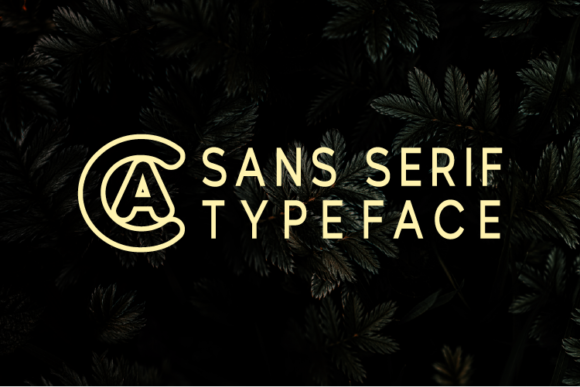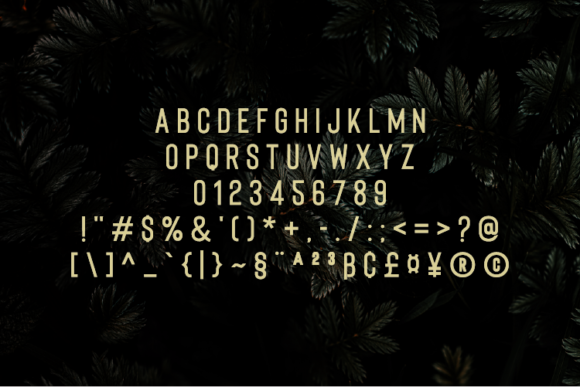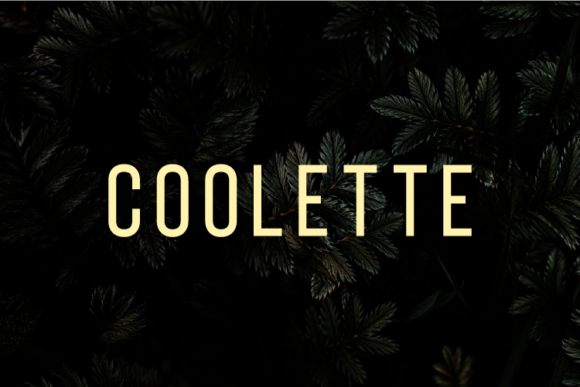
Introducing Coolette Font: The Ultimate Sans Serif for Modern Designs
Are you tired of using the same old fonts in your designs? Look no further than Coolette Font, a simple and casual sans serif font that’s taking the design world by storm. With its clean feel and beautiful arrangement of letters, Coolette is the perfect choice for both formal and non-formal designs.
What Makes Coolette Font So Special?
Coolette Font is a game-changer for designers and crafters alike. Its simplicity and elegance make it an ideal choice for a wide range of design projects, from brochures and posters to websites and social media graphics. The font’s clean lines and neat arrangement of letters give it a modern and sophisticated look that’s sure to impress.
Key Features of Coolette Font
- Simple and Casual: Coolette Font is a sans serif font that’s easy on the eyes. Its simple and casual design makes it perfect for both formal and non-formal designs.
- Clean Feel: The font’s clean lines and neat arrangement of letters give it a modern and sophisticated look.
- Beautiful Arrangement of Letters: Coolette Font features a beautiful arrangement of letters that will make your designs stand out.
- Versatile: Coolette Font is perfect for a wide range of design projects, from brochures and posters to websites and social media graphics.
Why Designers and Crafters Love Coolette Font
Coolette Font is quickly becoming a favorite among designers and crafters. Here are just a few reasons why:
- Easy to Read: Coolette Font is easy to read, even at small sizes. This makes it perfect for body text and other applications where readability is key.
- Highly Versatile: Coolette Font can be used in a wide range of design projects, from formal and non-formal designs.
- Unique and Creative: Coolette Font is a unique and creative font that’s sure to make your designs stand out.
How to Use Coolette Font in Your Designs
Using Coolette Font in your designs is easy. Here are a few tips to get you started:
- Pair it with Other Fonts: Coolette Font pairs well with other sans serif fonts. Try pairing it with a bold font for a striking contrast.
- Use it for Headings and Body Text: Coolette Font is perfect for both headings and body text. Use it to create a cohesive look throughout your design.
- Experiment with Colors: Coolette Font looks great in a variety of colors. Experiment with different colors to find the one that works best for your design.
Coolette Font is a simple and casual sans serif font that’s perfect for modern designs. With its clean feel and beautiful arrangement of letters, it’s sure to make your designs stand out. Whether you’re a designer or crafter, Coolette Font is a great choice for a wide range of design projects.
- What type of font is Coolette Font? Coolette Font is a sans serif font.
- Can I use Coolette Font for my website? Yes, Coolette Font is perfect for websites. Its clean lines and neat arrangement of letters make it easy to read on a variety of devices.